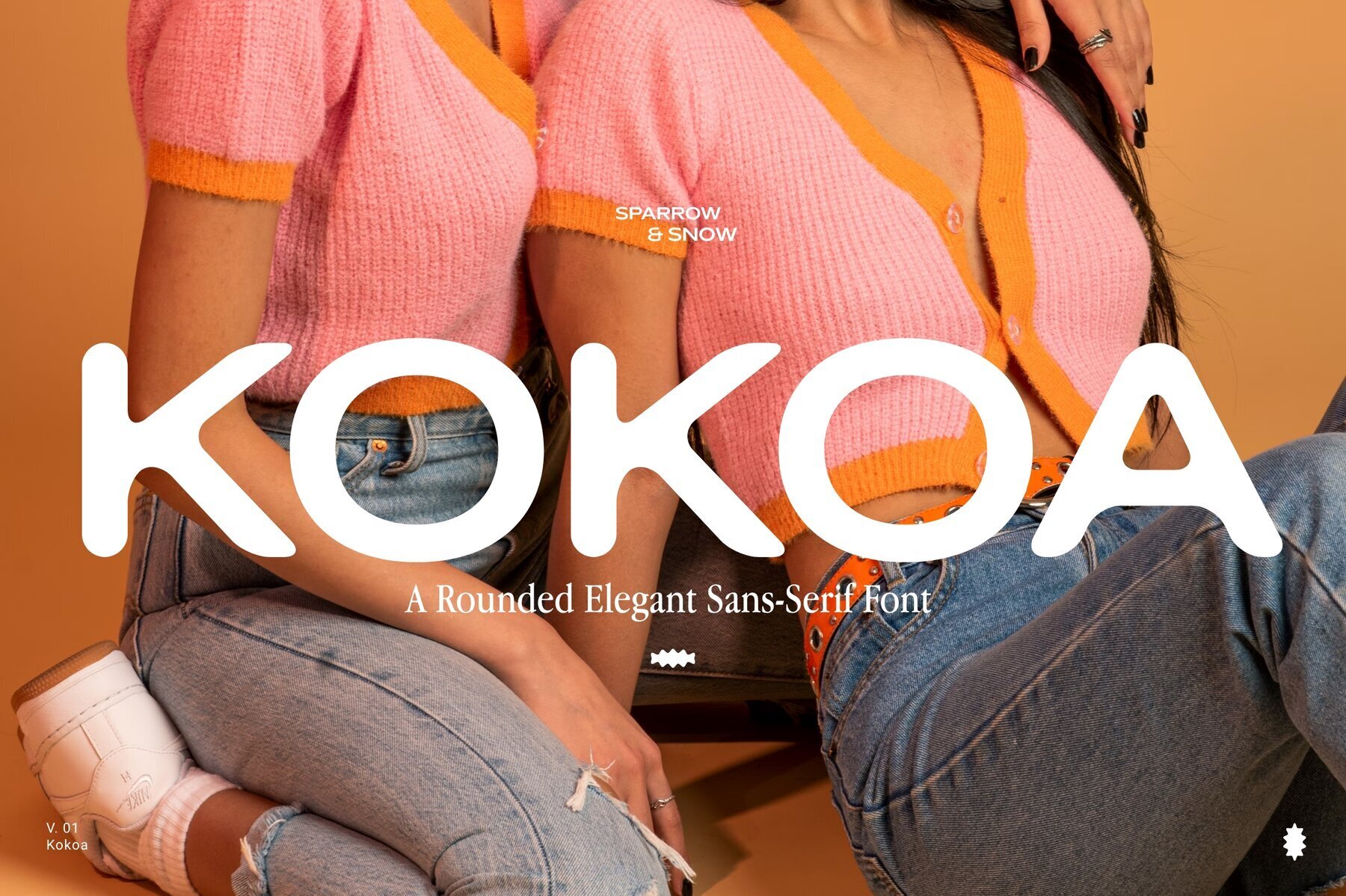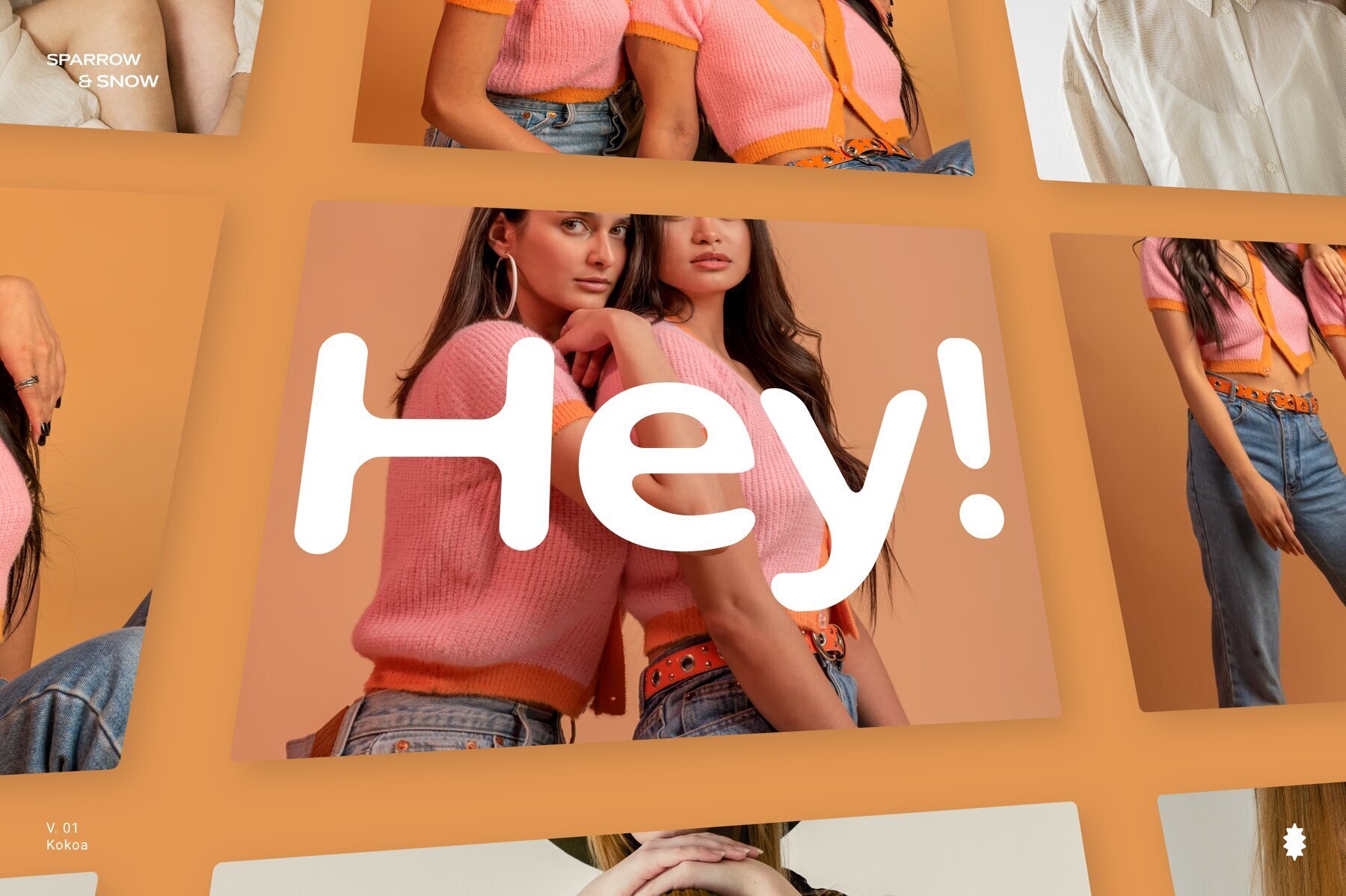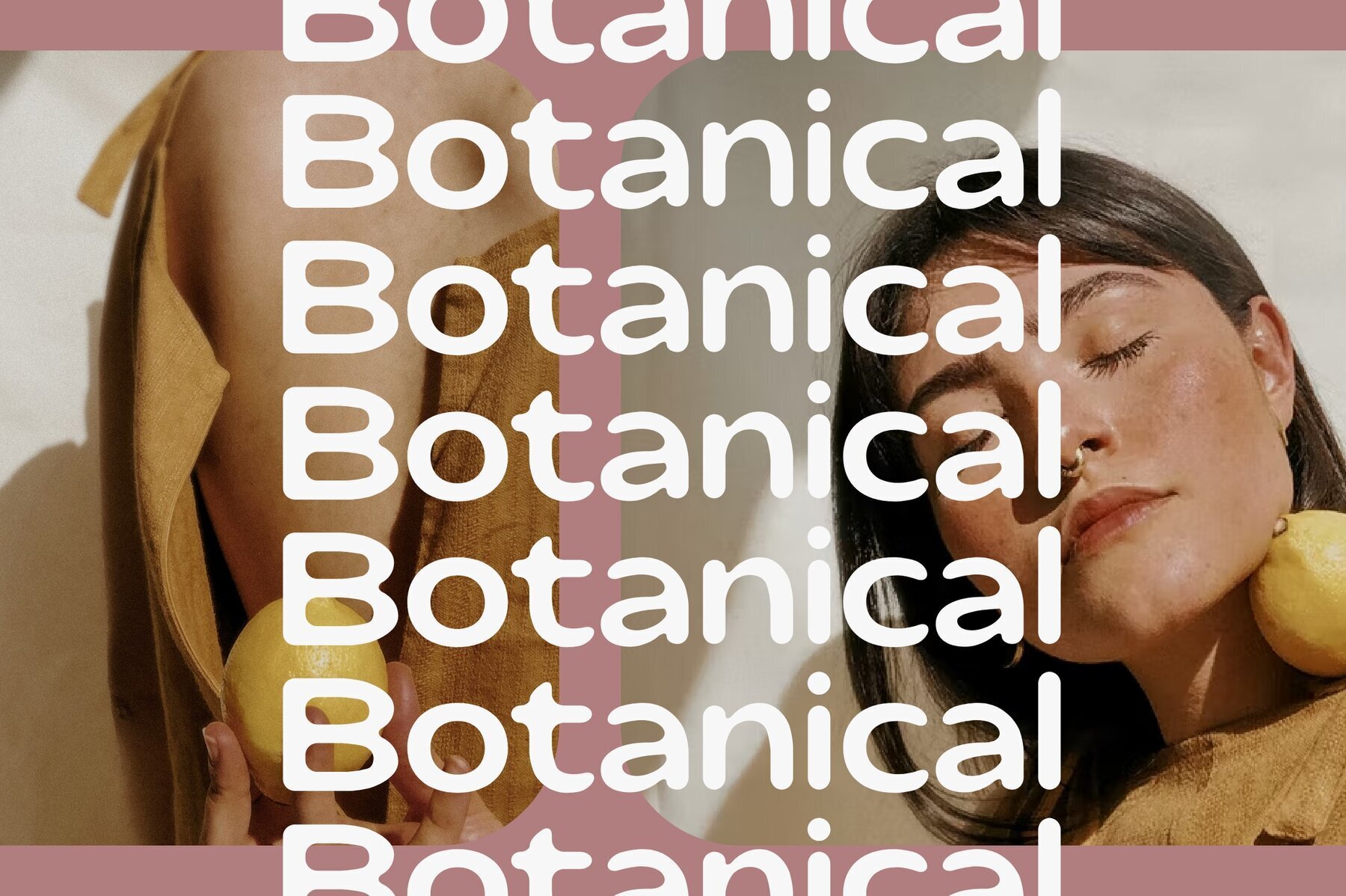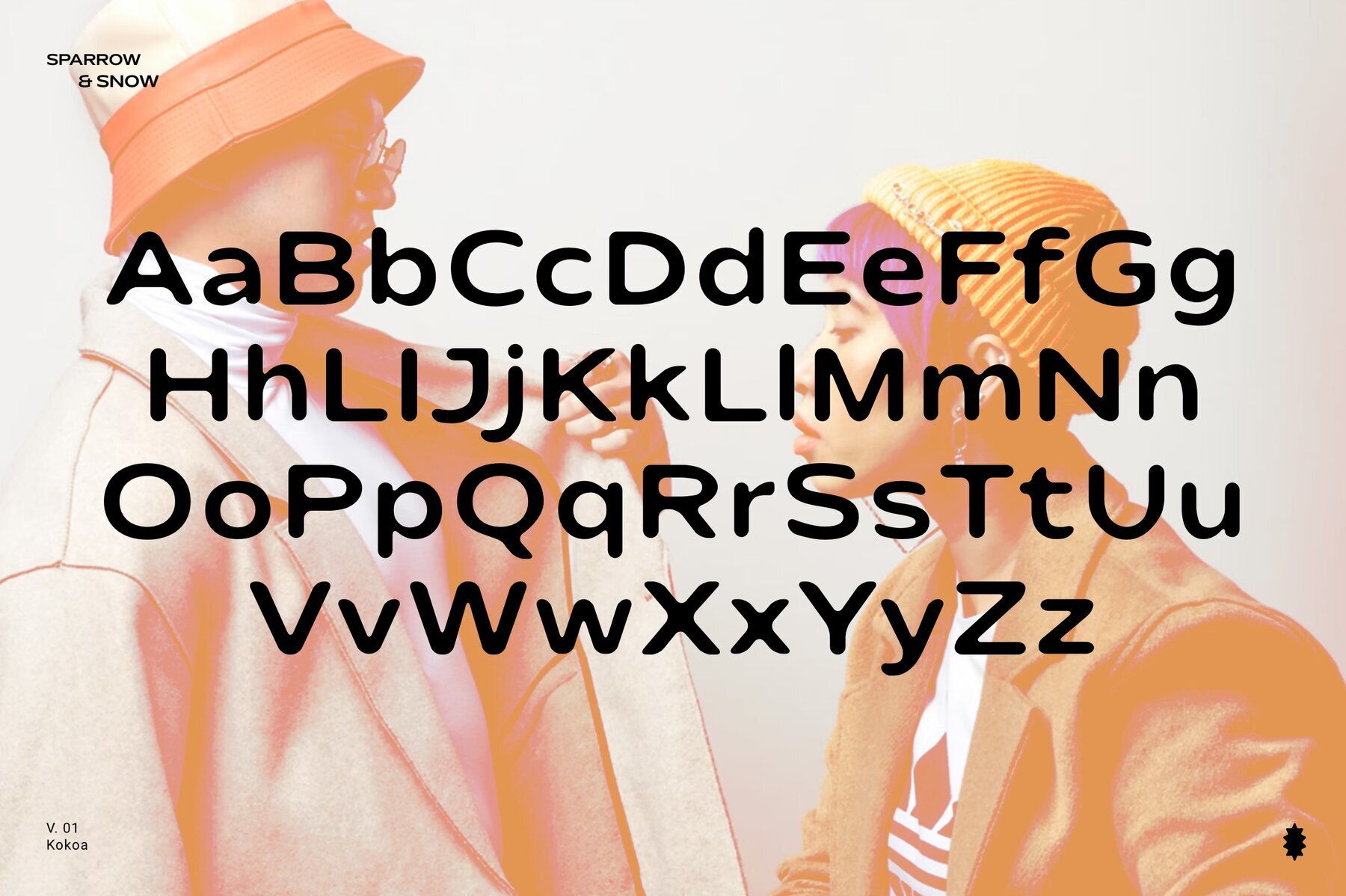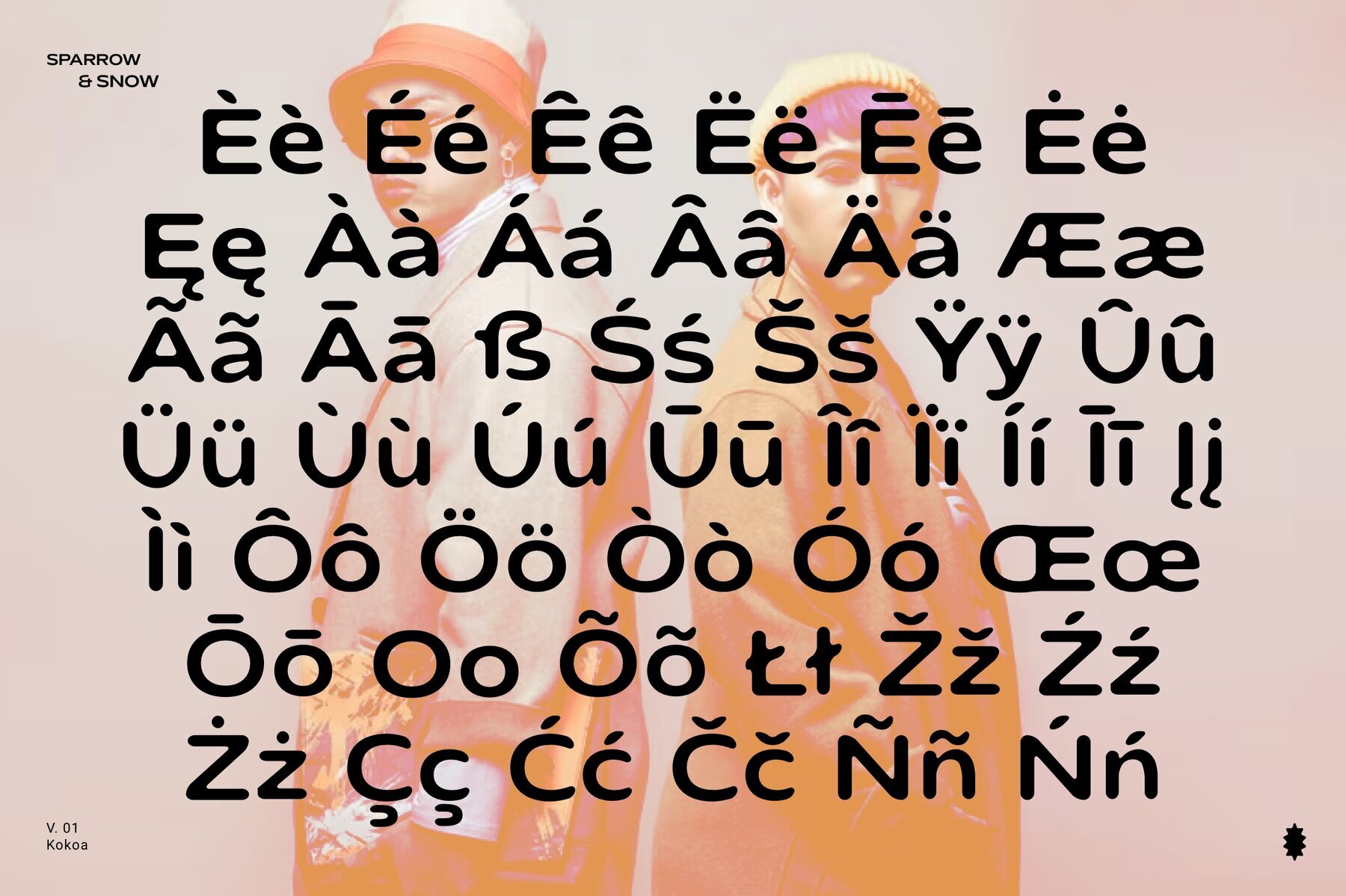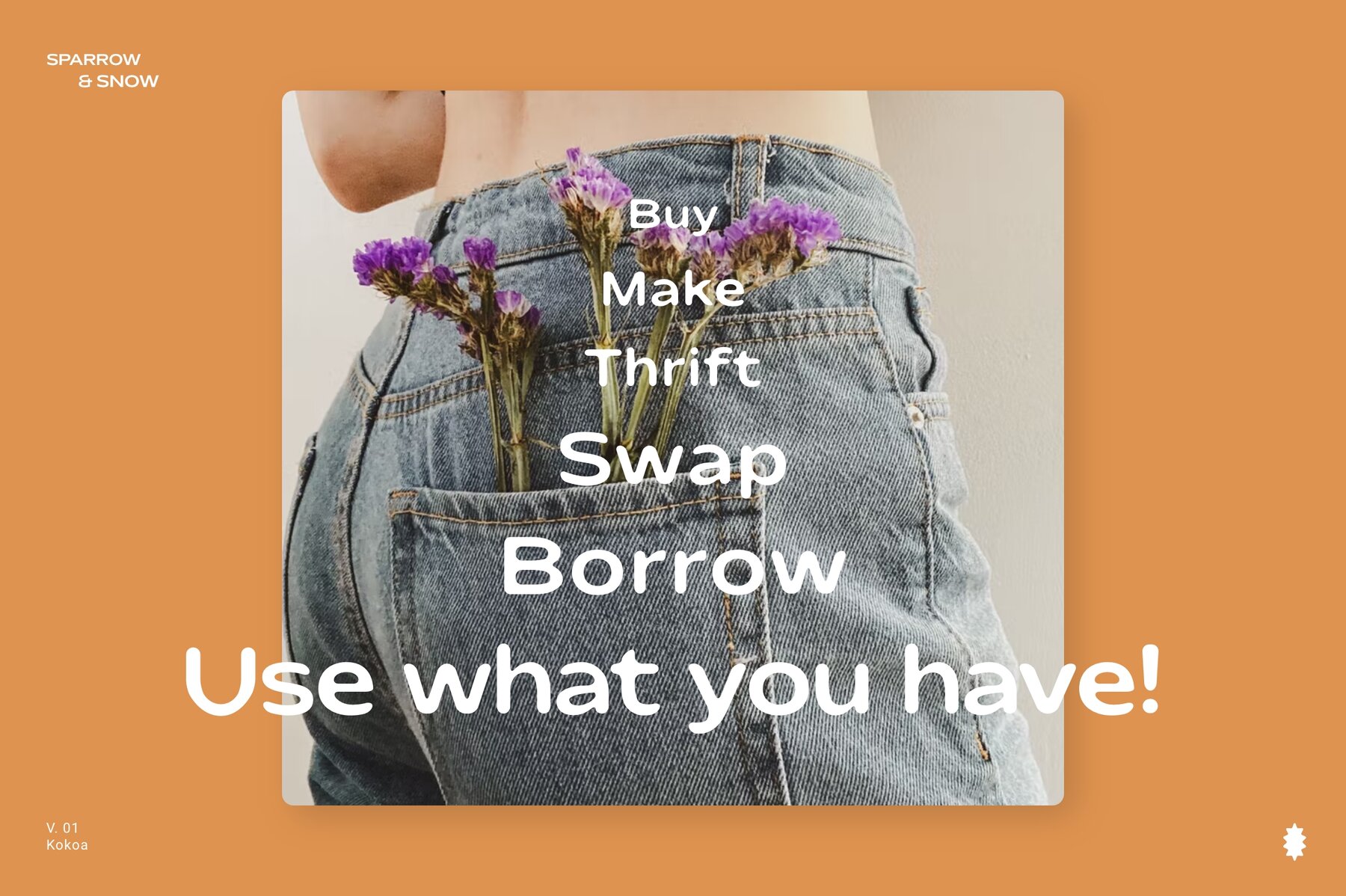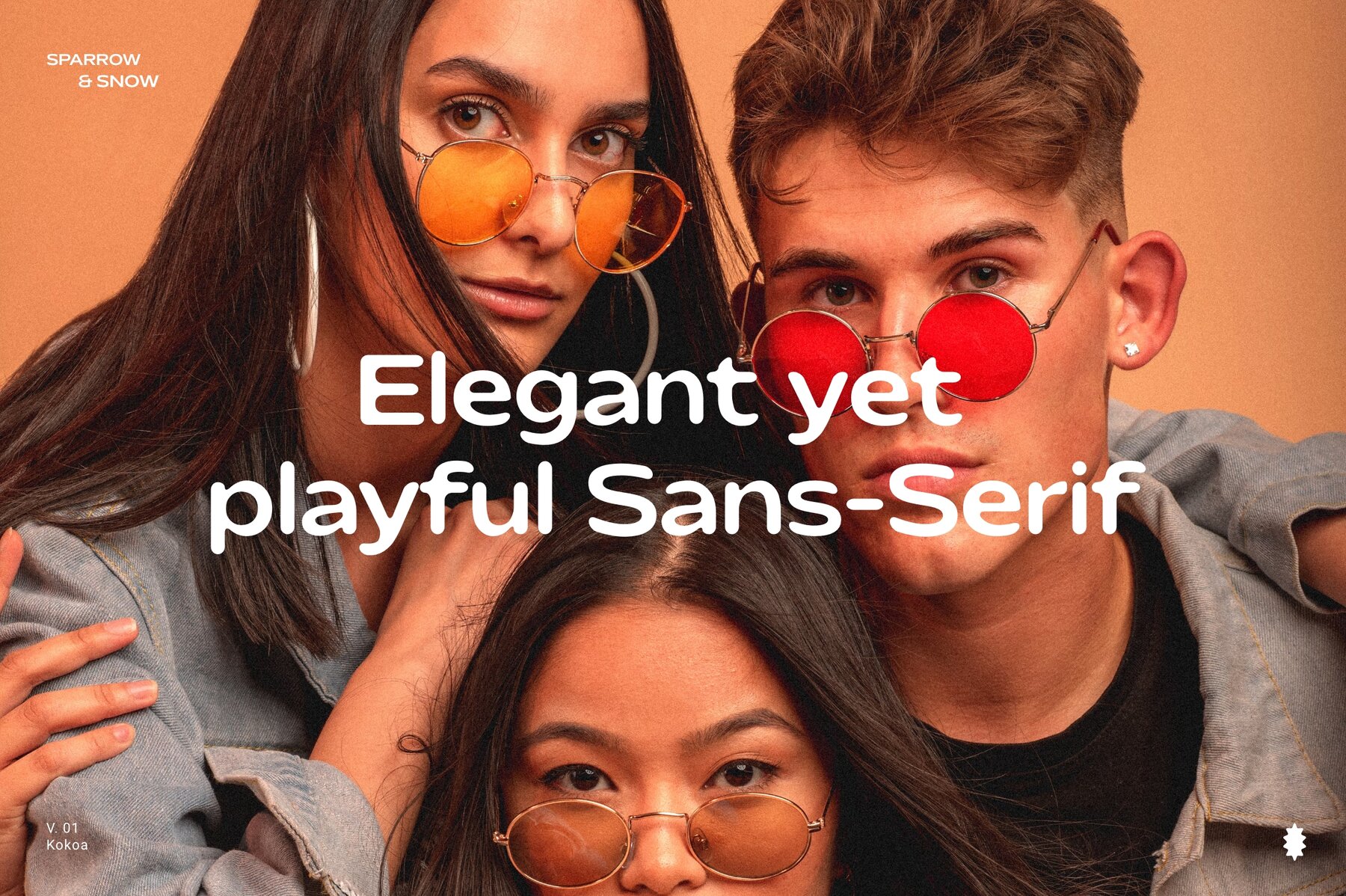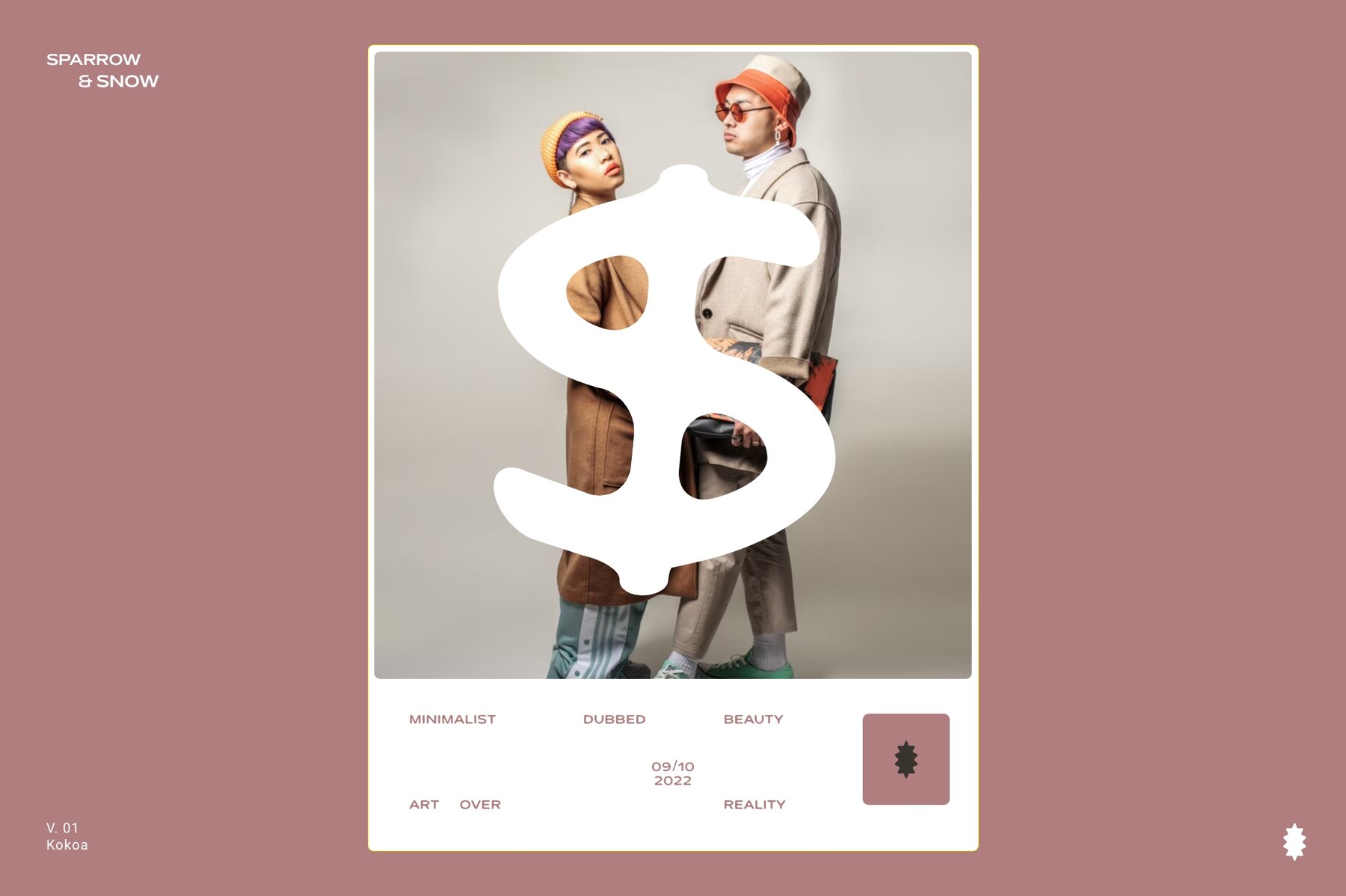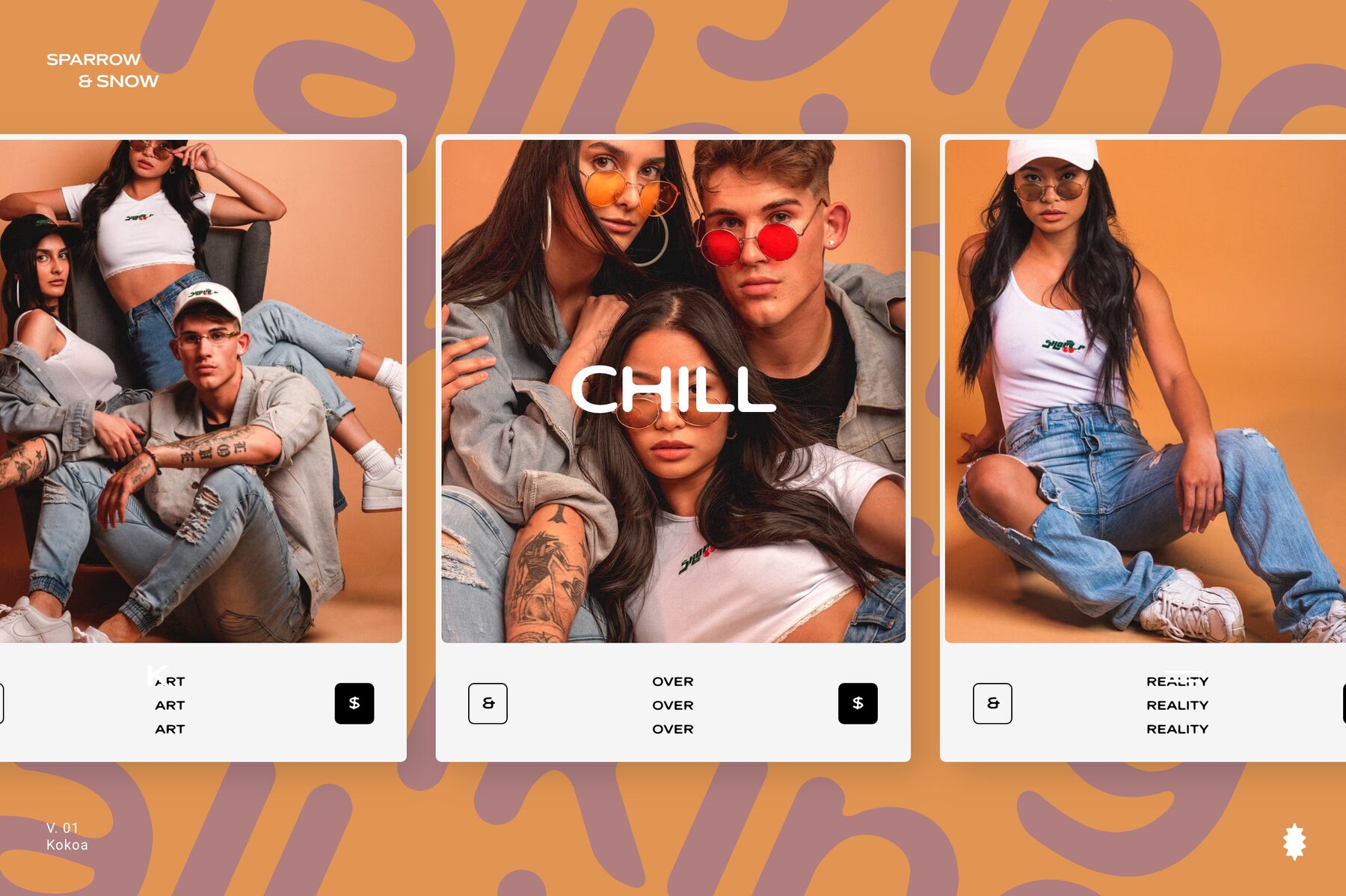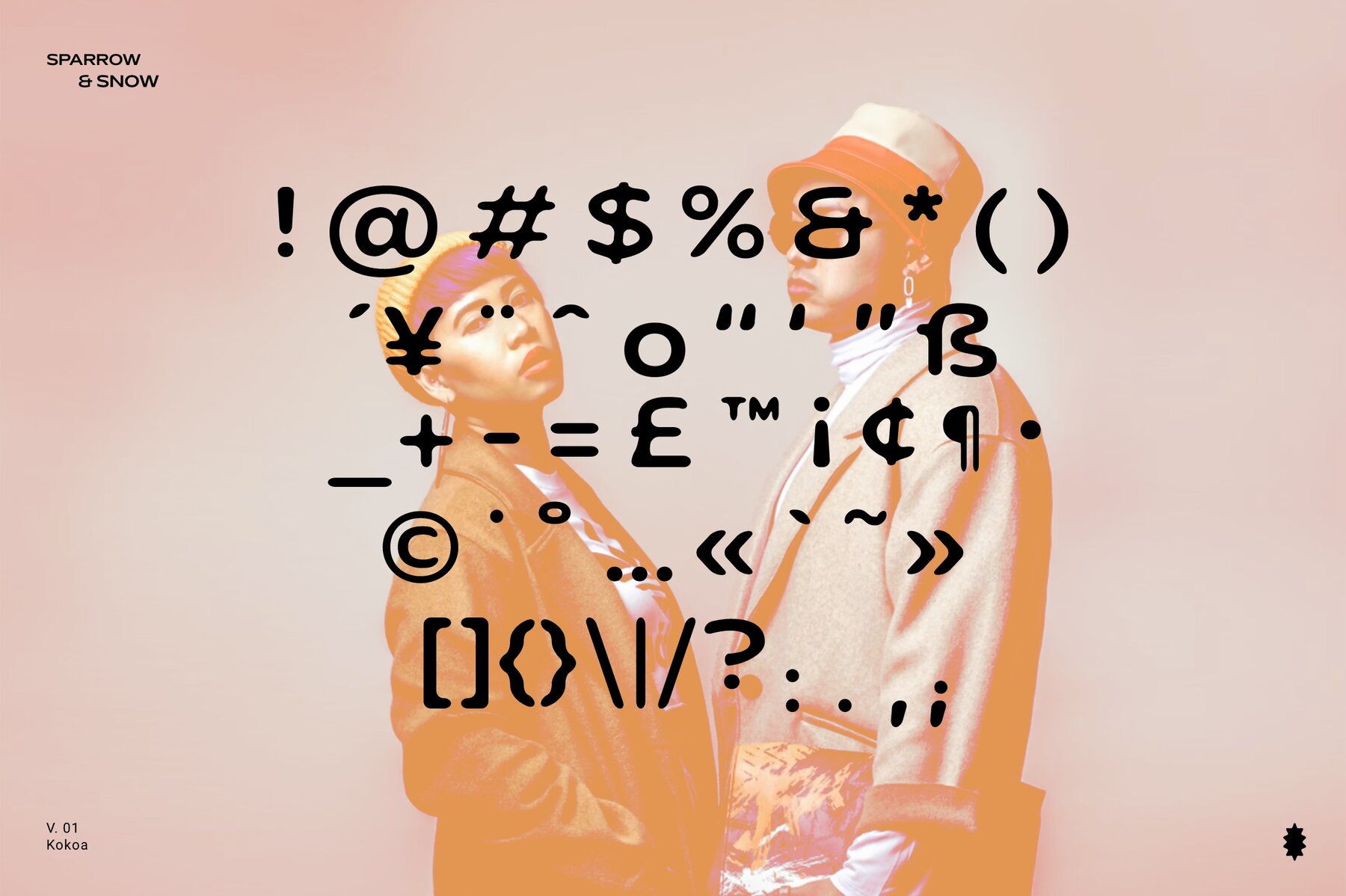
Kokoa Font
Kokoa
Kokoa is a sans-serif font with a rounded look for a natural, playful feel that will make your design projects truly stand out.
Kokoa performs nicely in logos and titles, and maintains a good readability also in paragraph text.
Kokoa includes characters for multilingual support: uppercase, lowercase, numbers, punctuation and special characters.